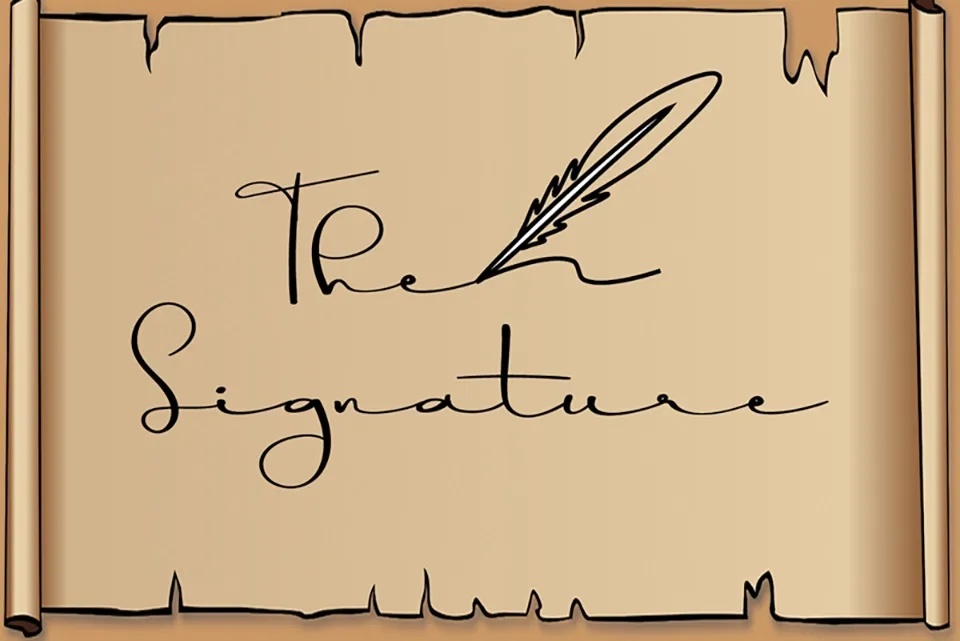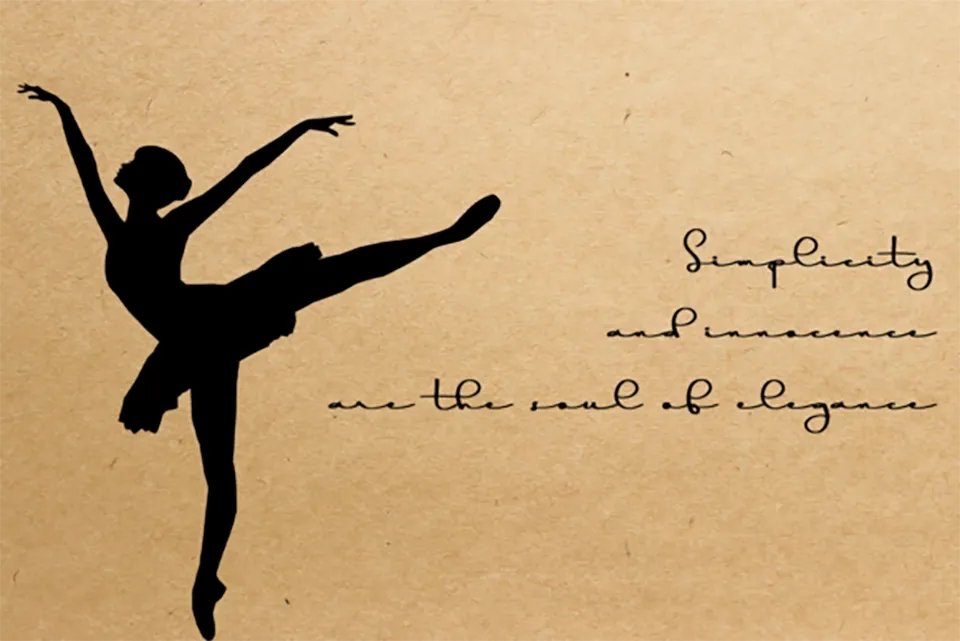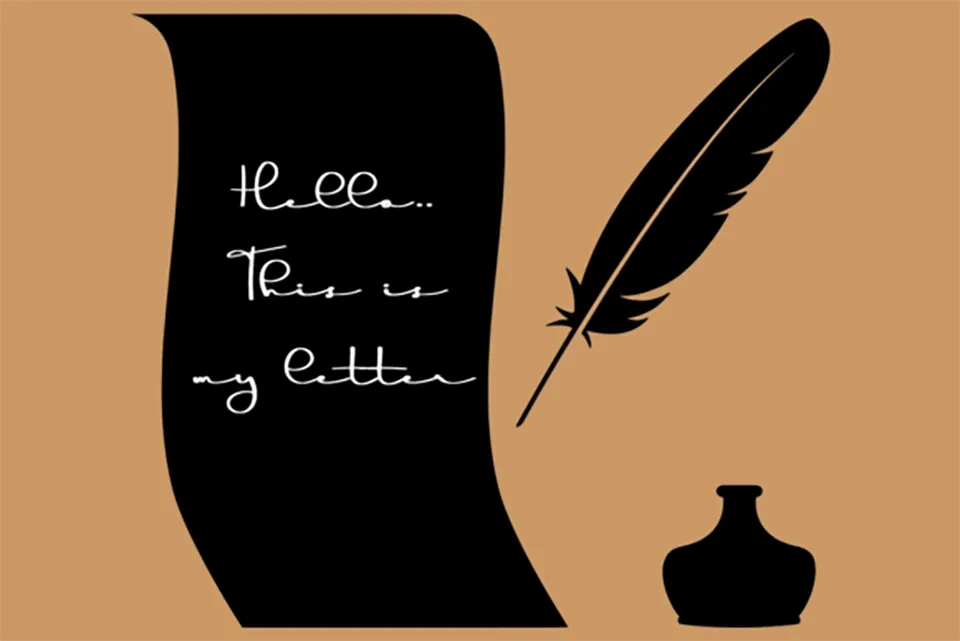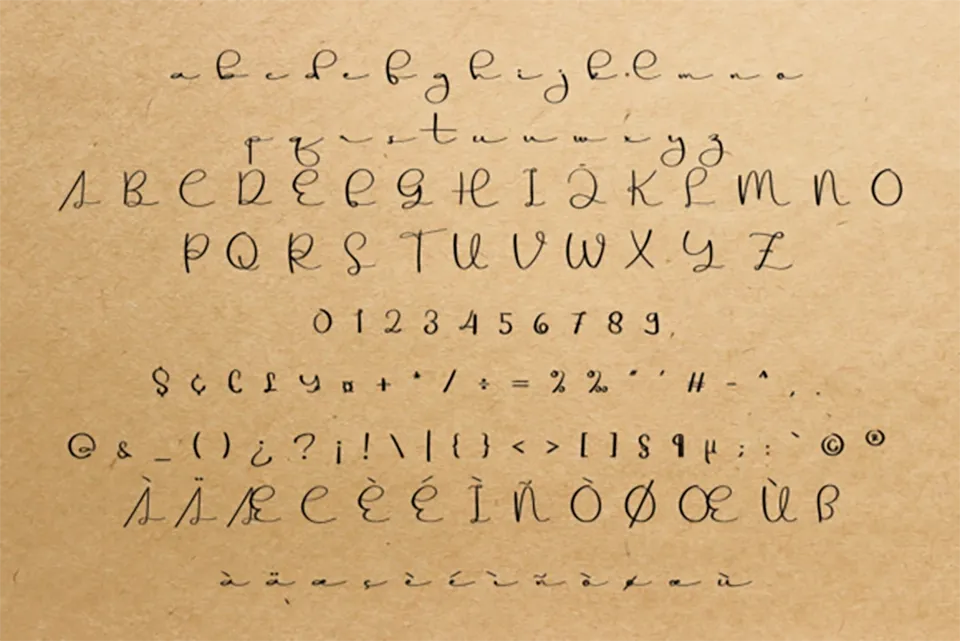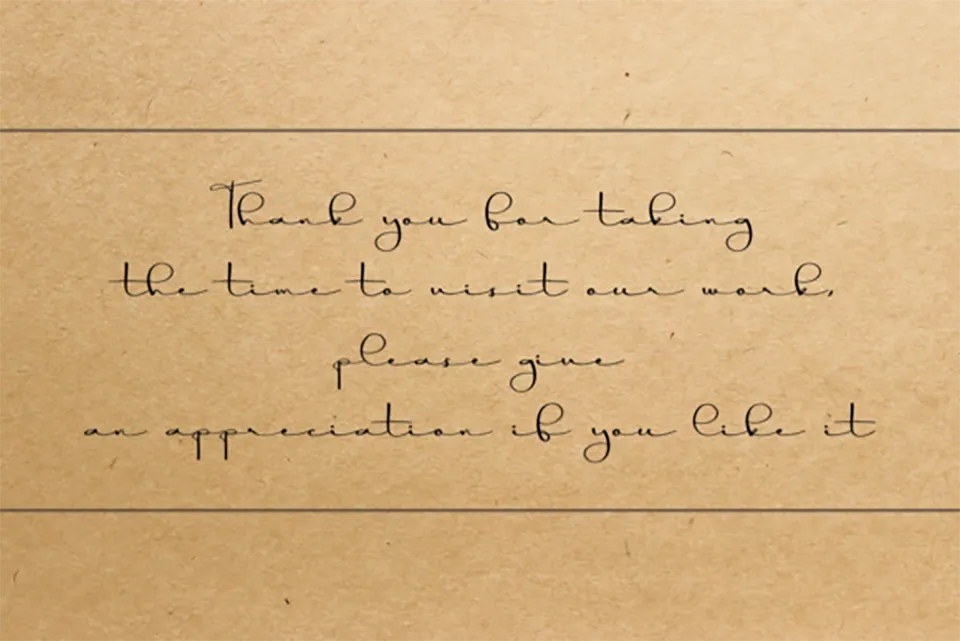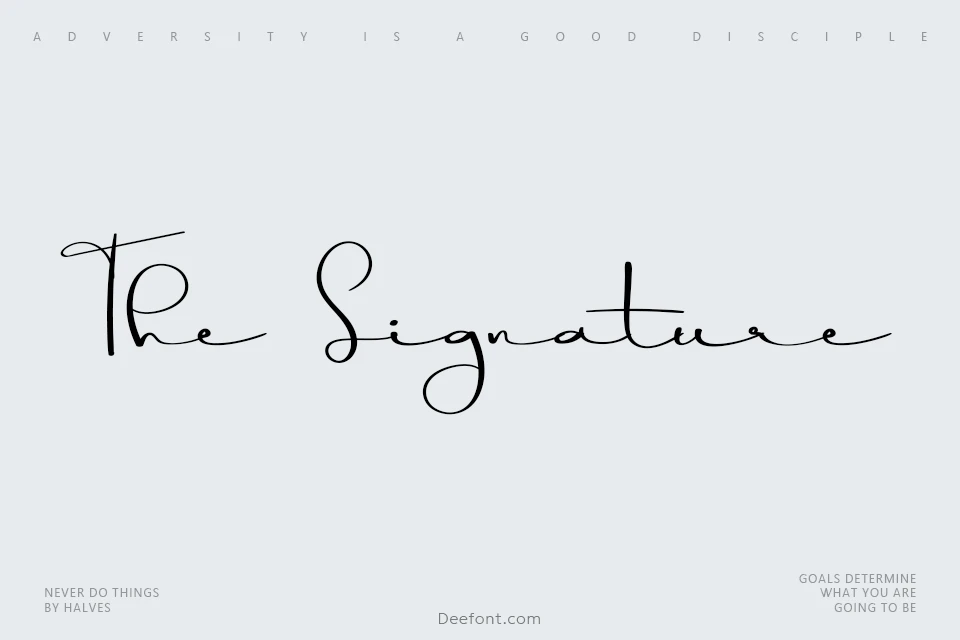
The Signature Font
The Signature Font font is a lovely script typeface that exudes elegance and a poetic touch, making it an ideal choice for sophisticated projects such as wedding invitations, birthday cards, business cards, and inspirational quotes. Its handwritten style brings a personal and exquisite feel to any design, perfect for those seeking a refined and graceful aesthetic.